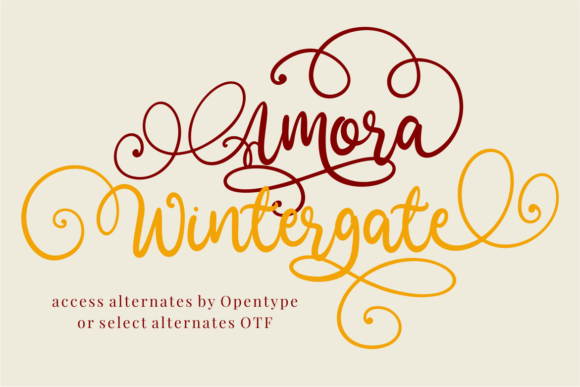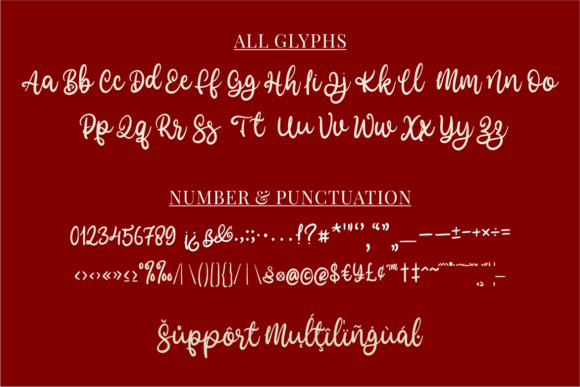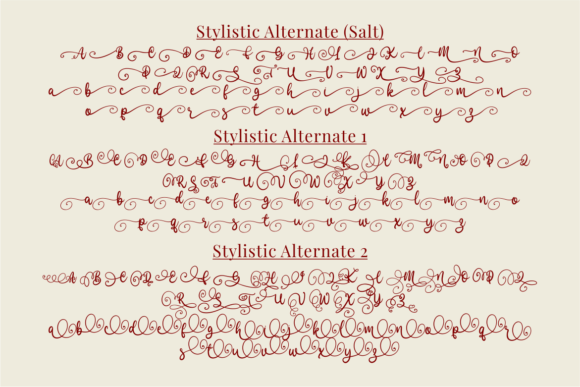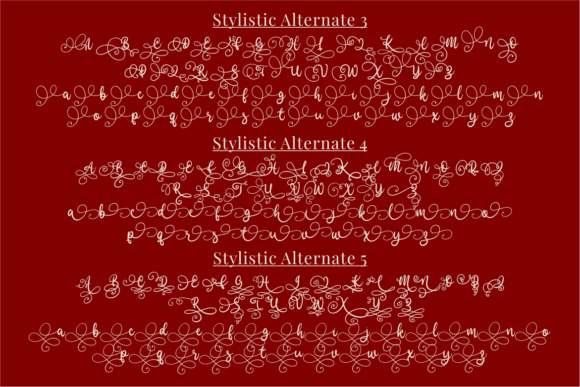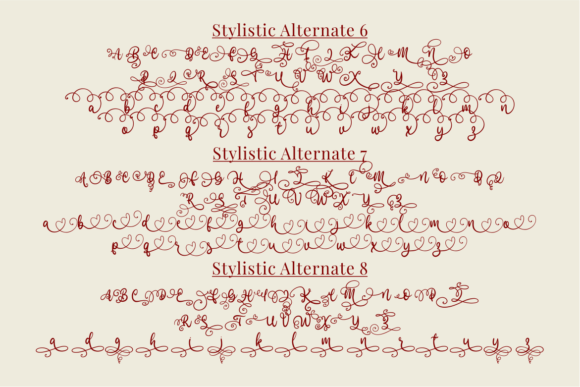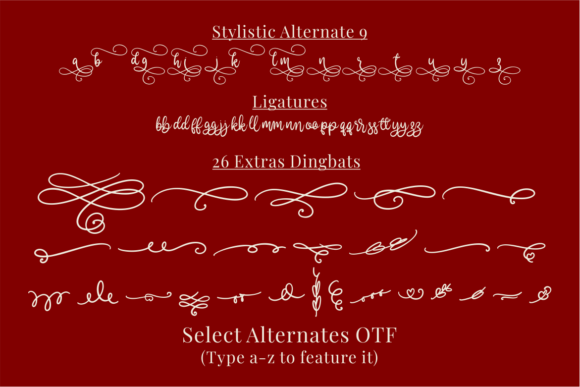
As a designer, there’s nothing quite like the feeling of finding the perfect font to bring a project to life. Whether it’s a romantic wedding invitation or a whimsical children’s book, the right font can make all the difference. And when it comes to adding a touch of elegance and sophistication, the Amora Wintergate Font is sure to be a standout choice.
This beautiful handwritten and dingbats font is designed to evoke a sense of romance and whimsy, making it perfect for a wide range of applications, from greeting cards to headlines. With its delicate flourishes and ornate details, the Amora Wintergate Font is guaranteed to add a touch of magic to your next project.
Key Features of Amora Wintergate Font
- Unique Characteristics: Elegant, modern script font with flowing connections and subtle flourishes; perfect for wedding invitations, calligraphy, and handwritten text
- Font Style: Script, Casual, Handwritten
Designer Review: Amora Wintergate Font
I recently had the chance to work with the Amora Wintergate Font, and I must say it’s an interesting addition to the world of typography. ✨ Here are some things that caught my attention.
- ✨ Unique aesthetic: Amora Wintergate Font has a distinct, hand-painted feel that can add a touch of whimsy to your designs.
- ✨ High legibility: The font is surprisingly easy to read, even at smaller sizes, which is a must-have for any font.
- ✨ Customization options: The font comes with a range of weights and styles, allowing you to customize it to suit your design needs.
However, as with any font, there are some limitations to consider. ⚠️ Here are a few things to keep in mind:
- ⚠️ Limited language support: Amora Wintergate Font may not be suitable for designs that require a wide range of languages, as it’s primarily designed for English and other Latin-based scripts.
- ⚠️ May not be ideal for small text: While the font is highly legible, it may not be the best choice for small text sizes, as the details can get lost.
Overall, Amora Wintergate Font is a great choice for designers looking to add a touch of personality to their designs. While it may not be the most versatile font, it’s certainly a unique and interesting option that’s worth considering.
Amora Wintergate Font Practical Application Guide
Getting the Most Out of Amora Wintergate Font
For optimal results, use the Amora Wintergate Font for titles, headings, and other large text elements. This font is particularly well-suited for winter-themed designs, holiday cards, and invitations.
The Amora Wintergate Font is commonly used for:
- Winter-themed designs and invitations
- Holiday cards and gift tags
- Branding and logos for winter sports and activities
Alternatives to Amora Wintergate Font
Playfair Display is a luxurious, elegant font ideal for use in high-end branding, magazine headings, and special event invitations. Its classic design and refined lines evoke a sense of sophistication and timelessness.
Comparison to Amora Wintergate Font: While both fonts are elegant and luxurious, Playfair Display is more traditional and classic in its design, whereas Amora Wintergate Font has a more modern and whimsical feel.
Great Vibes is a modern, elegant script font perfect for use in wedding invitations, luxury branding, and high-end event promotions. Its flowing lines and elegant curves create a sense of sophistication and glamour.
Comparison to Amora Wintergate Font: Great Vibes Font is more modern and flowing in its design, whereas Amora Wintergate Font has a more traditional and ornate feel.